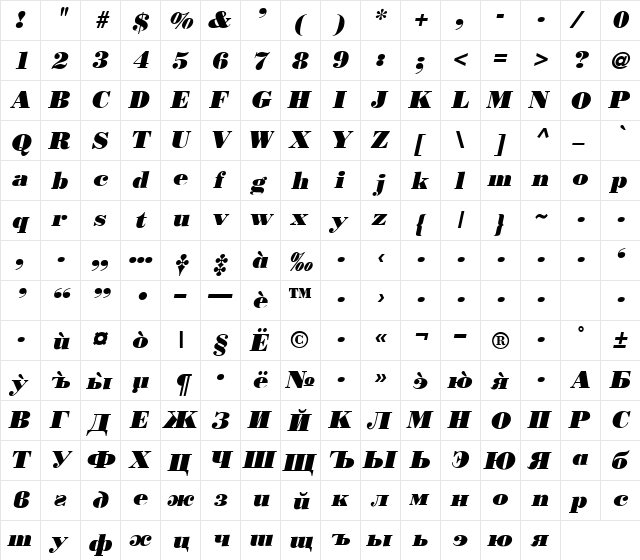
BodinoCyr Bold Italic
Design Context for BodinoCyr Typeface
BodinoCyr takes a measured approach to typography — its balanced proportions and neutral character make it a reliable workhorse for both digital and print work. Its italic angle brings a sense of urgency and motion to the letterforms. The heavy weight commands attention and anchors typographic hierarchies.
Pro Tip: Use BodinoCyr for emphasis, pull quotes, and subheadings where its slanted energy can add rhythm to the layout.